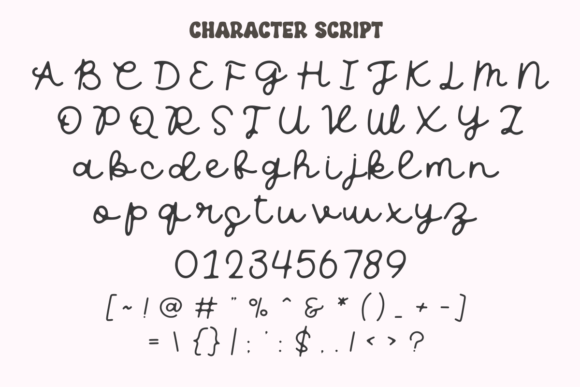
Magical Vintage Font
Magical Vintage, a retro-inspired duo of handwritten fonts that beautifully combine display and script characters. This uniquely versatile font breathes life into crafts, elevates designs for t-shirts and hoodies, and adds a nostalgic touch to wedding and birthday invitations. Ideal for conveying personality in your quotes, or infusing whimsical character on any project, Magical Vintage is the font that truly delivers the charm of yesteryears.